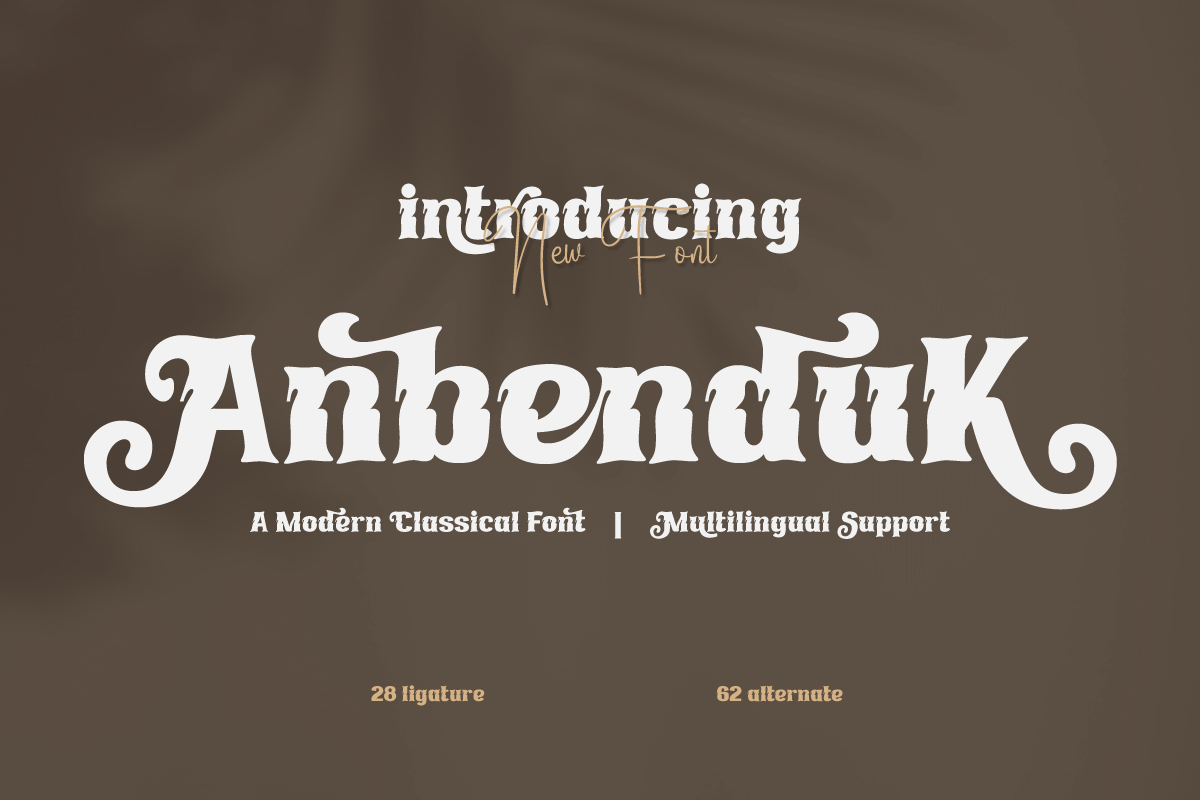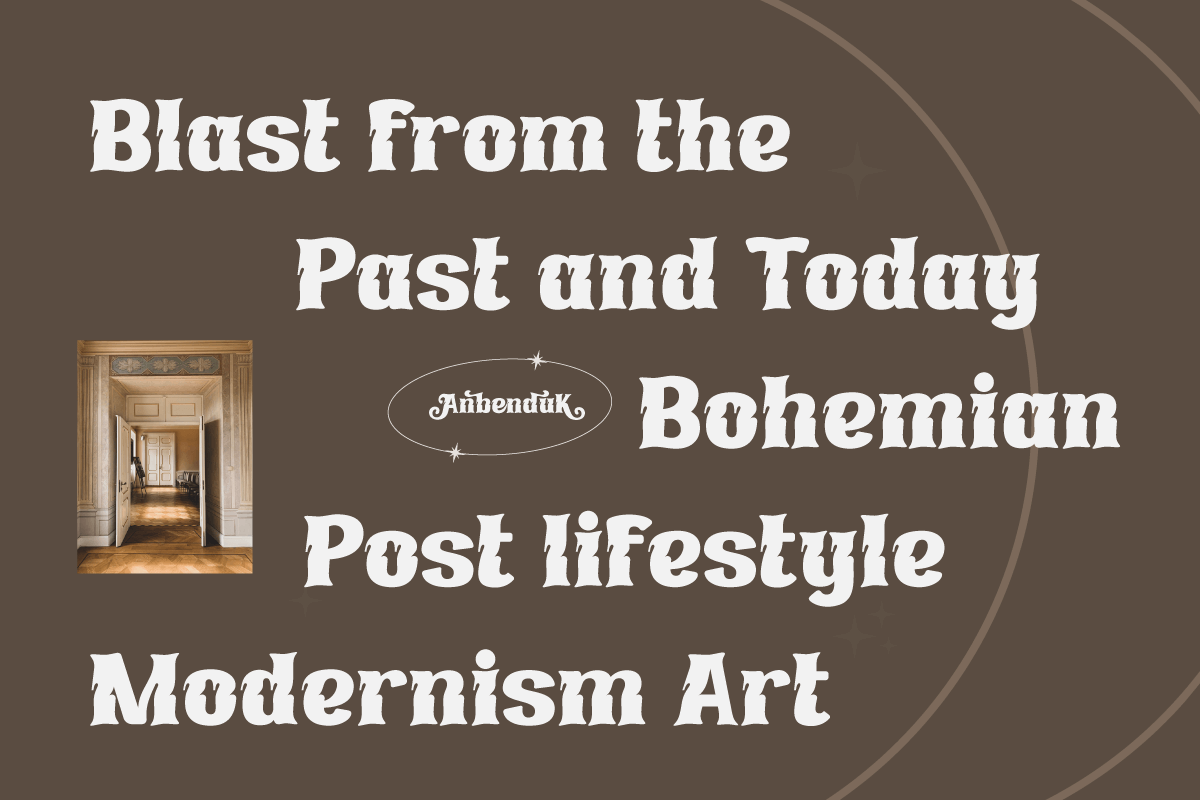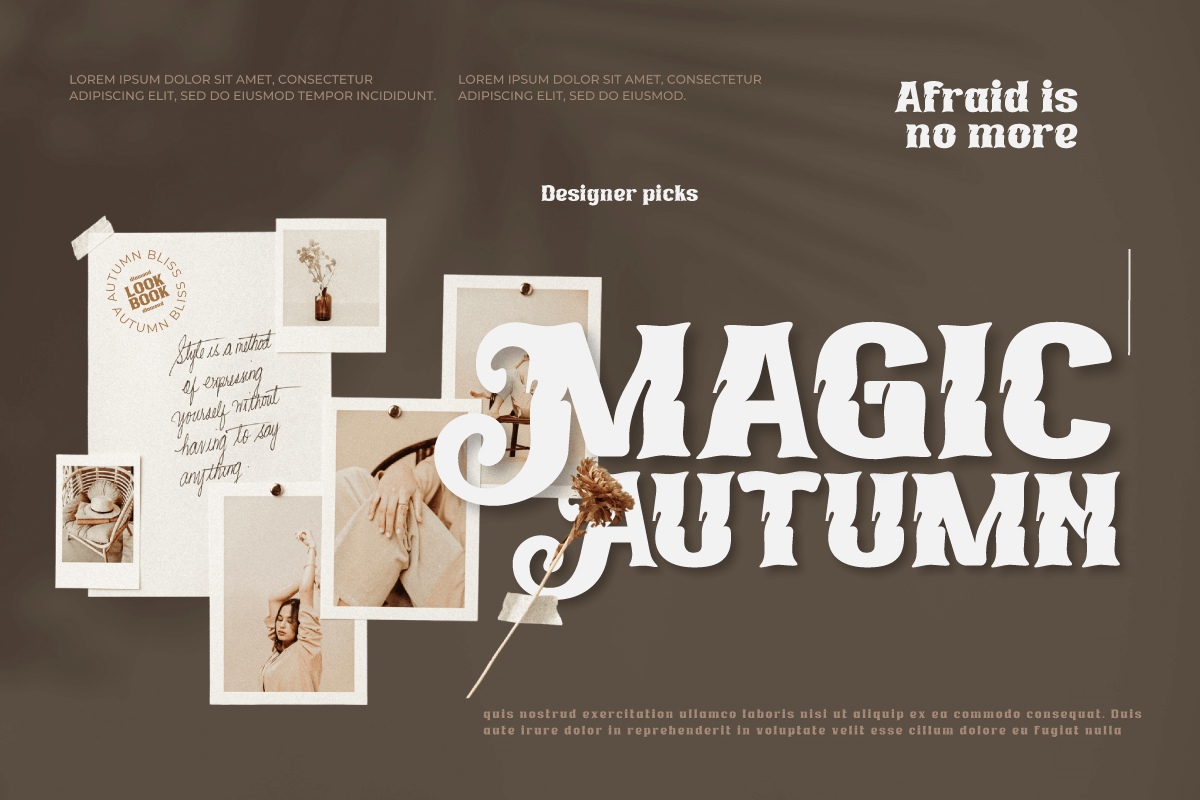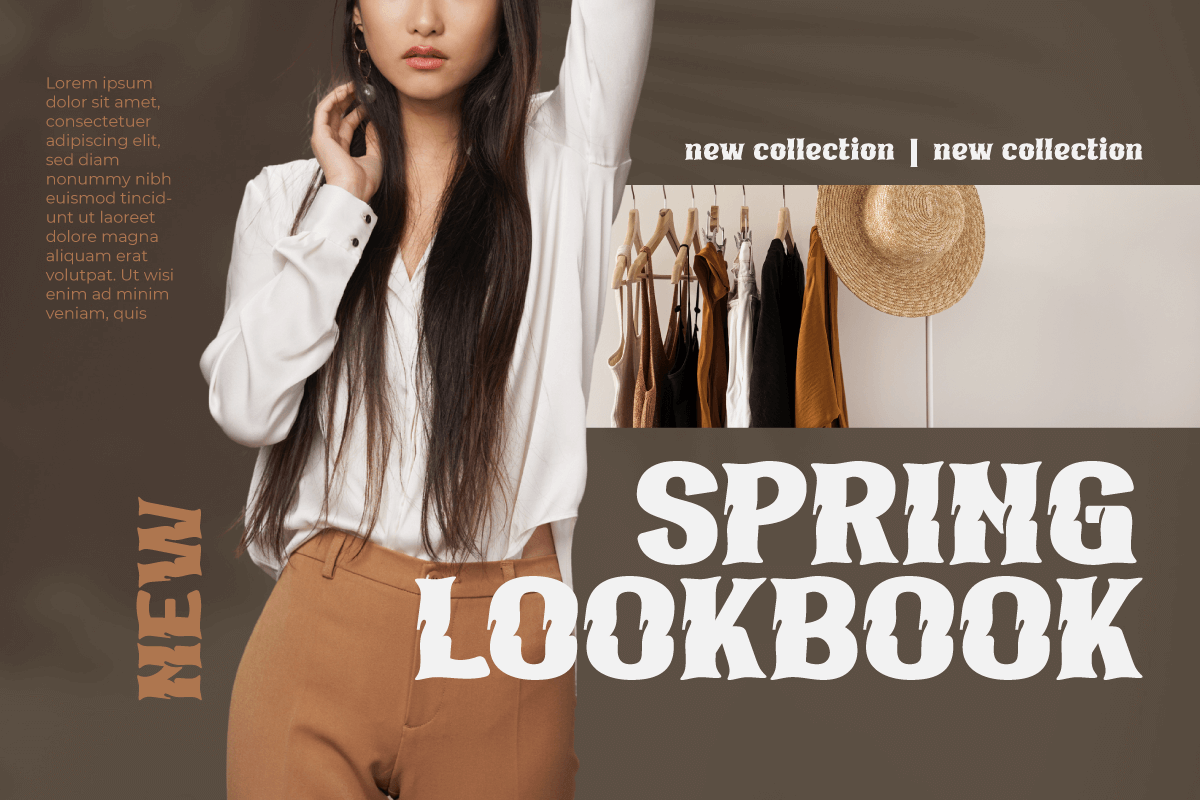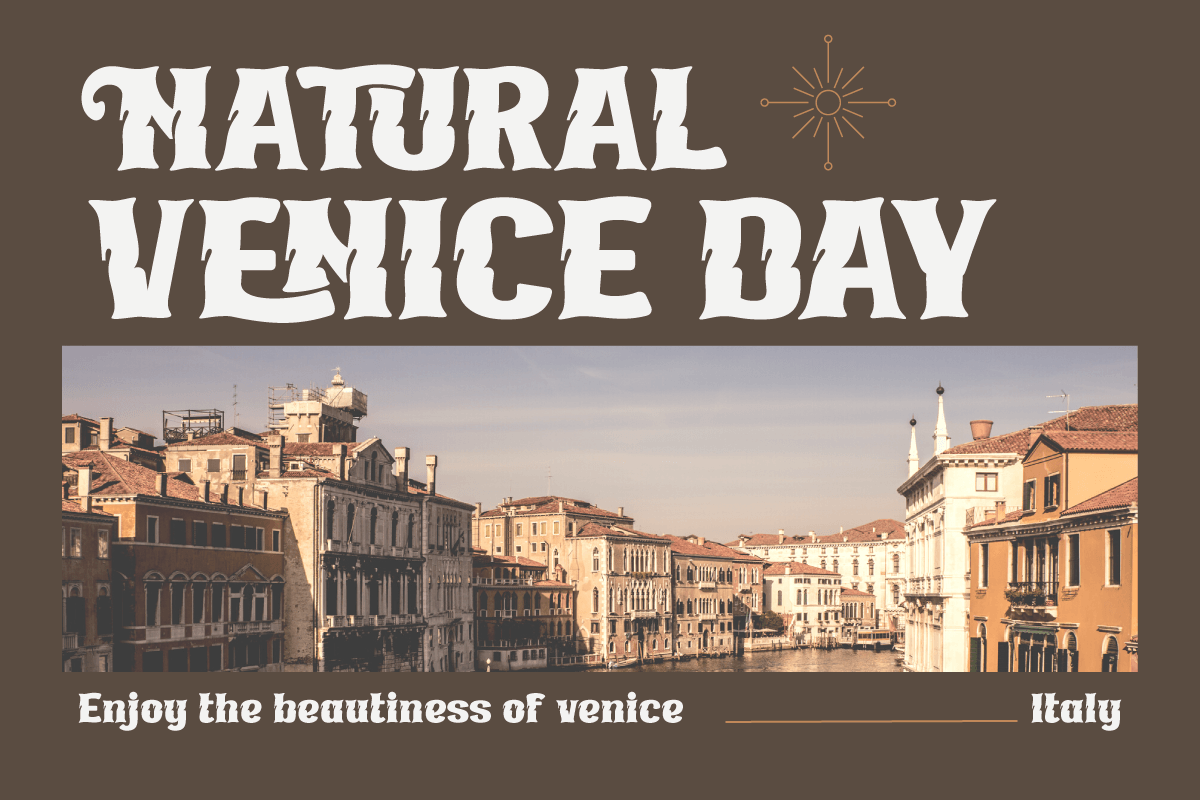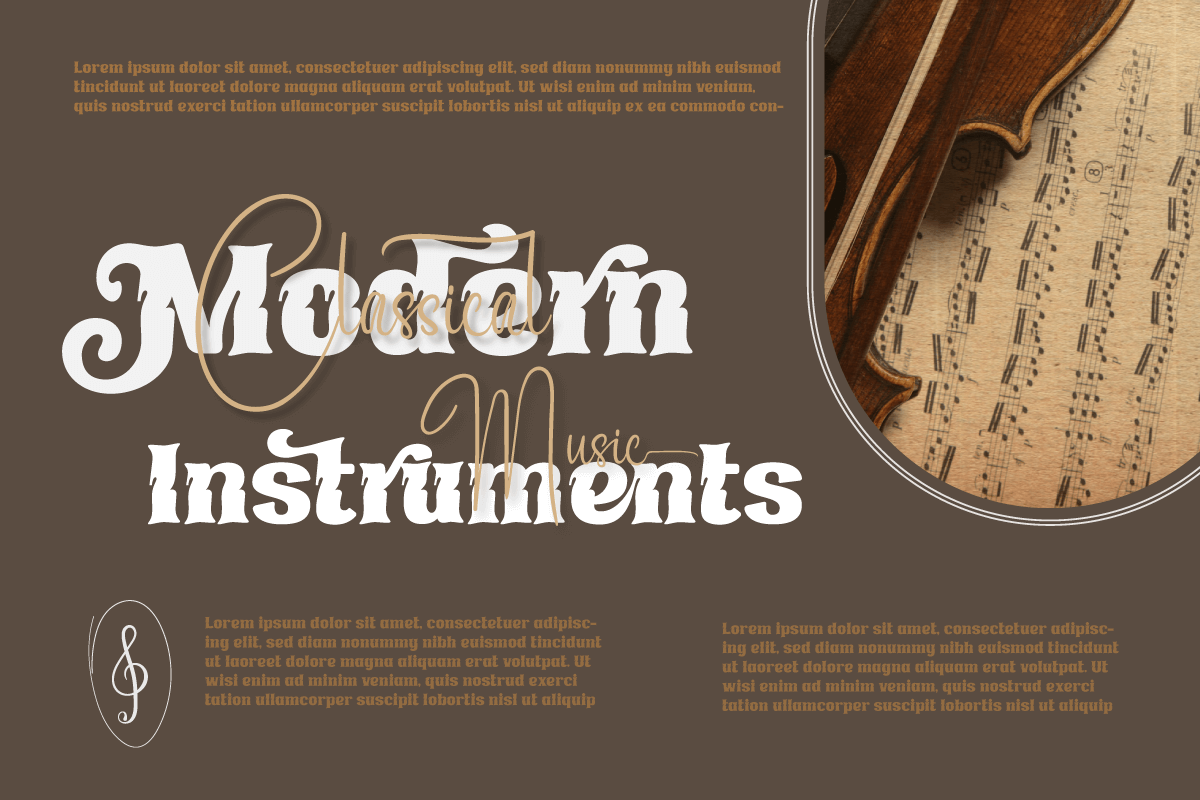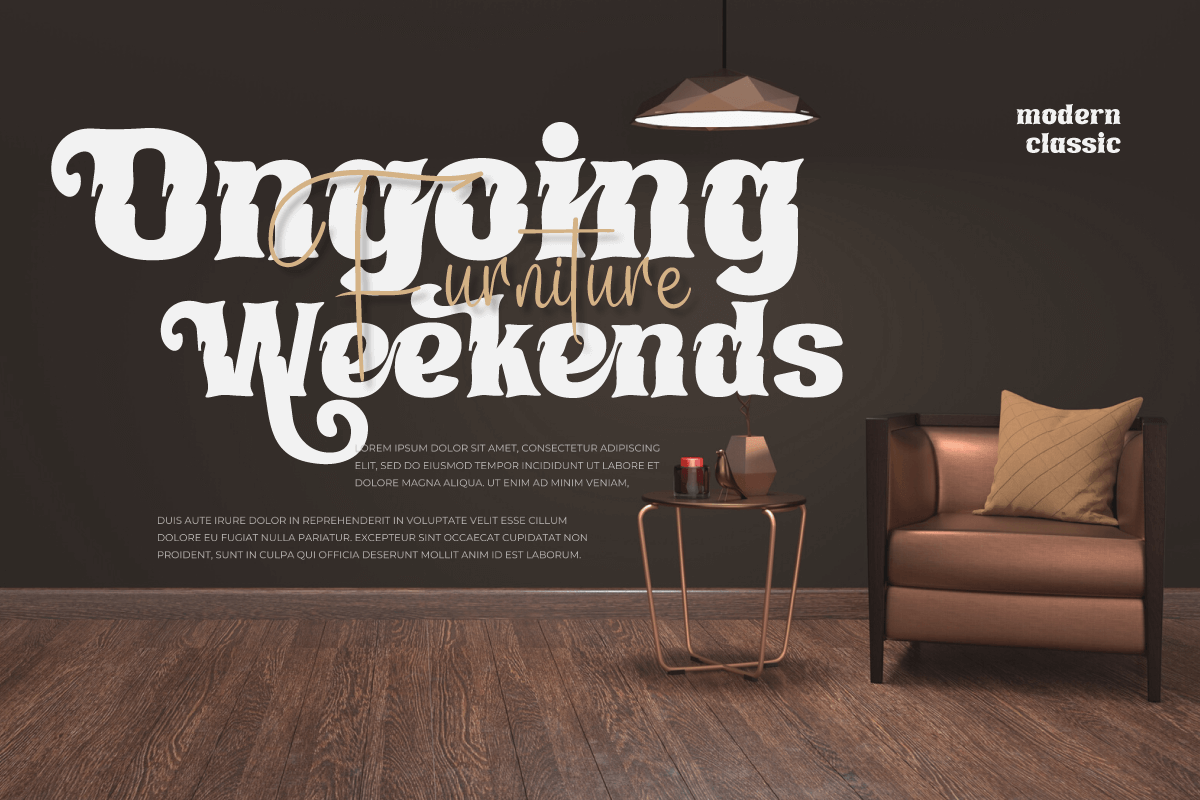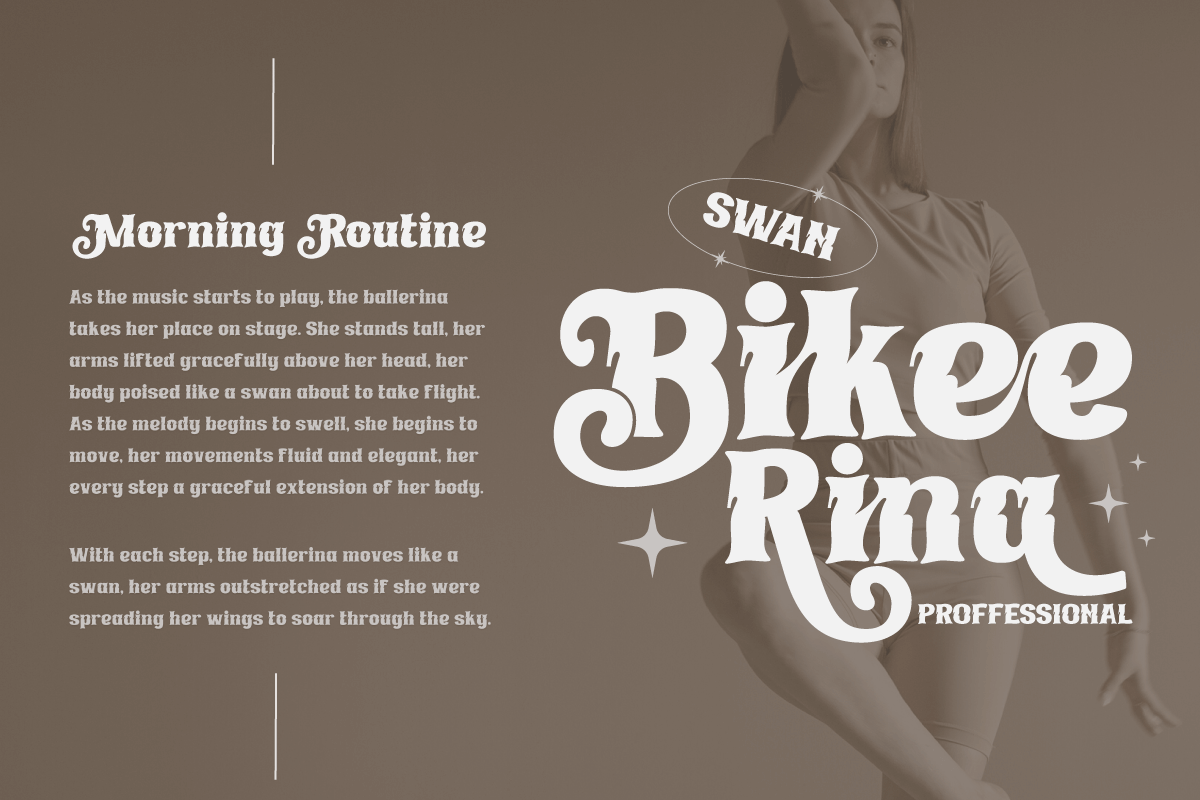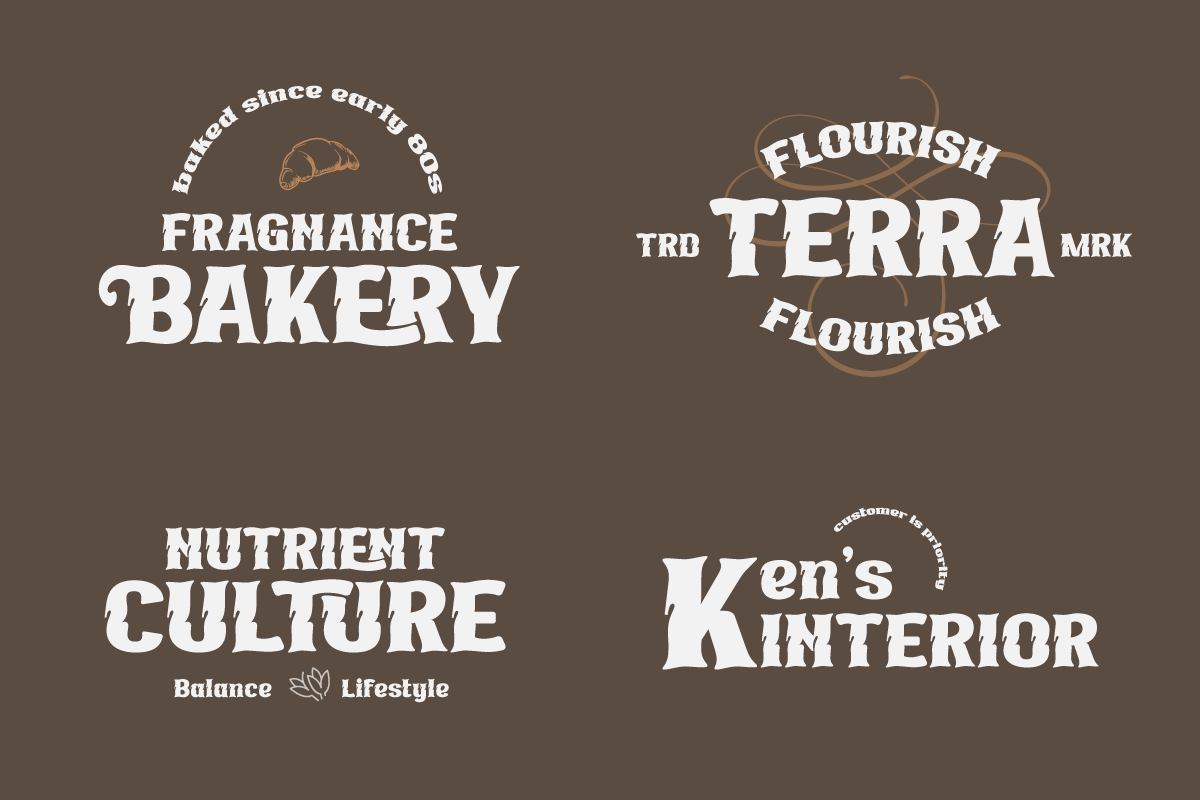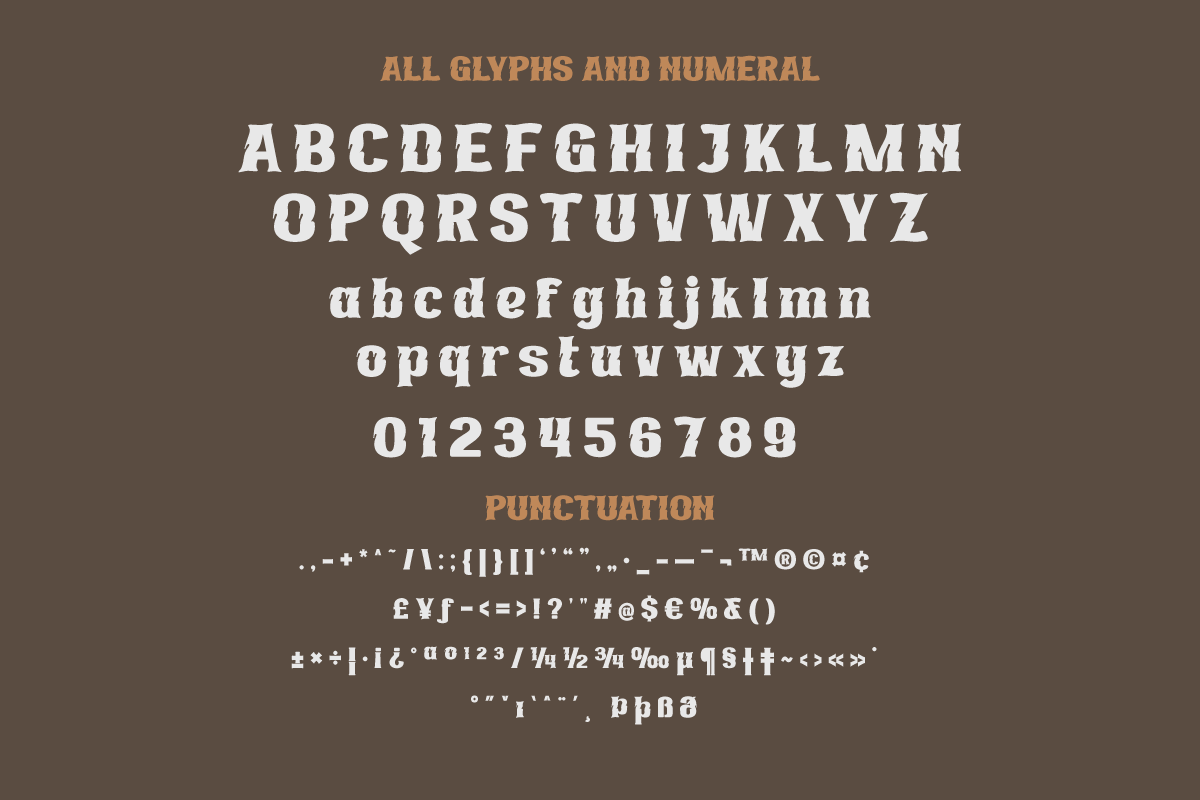
Anbenduk | Serif Classic Modernism
The Anbenduk typeface is ideal for projects that require an elegant classic modernist serif feel. This font’s distinct and attractive design will make your writing stand out and appear professional.
Anbenduk has wonderful features like ligatures and alternates that will provide a creative touch to your creations. Aside from that, this font supports a wide range of international languages, making it ideal for multilingual projects.